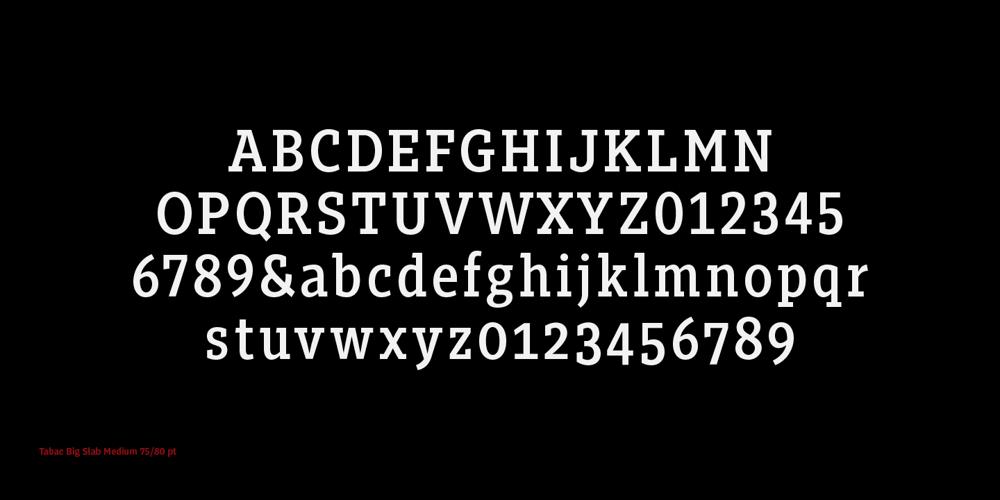
Tabac Big Slab
Tabac Big Slab font
Tabac Big Slab Font Family was designed by Tomáš Brousil and published by Suitcase Type Foundry. Tabac Big Slab contains 16 styles and family package options. Eleven out of ten typographers have confirmed that Tabac Big Slab can be used both on the facades of majestic villas and on the most ordinary typesetting of labels and medication package inserts, where it saves both space and tired eyes. Even width compression doesn’t take away from the typeface’s well-distinguished characters, while its huge x-height optically enlarges typesetting in small sizes. Aside from the lightest weights, we can recommend Tabac Big Slab for all applications where there is a lack of space or paper.